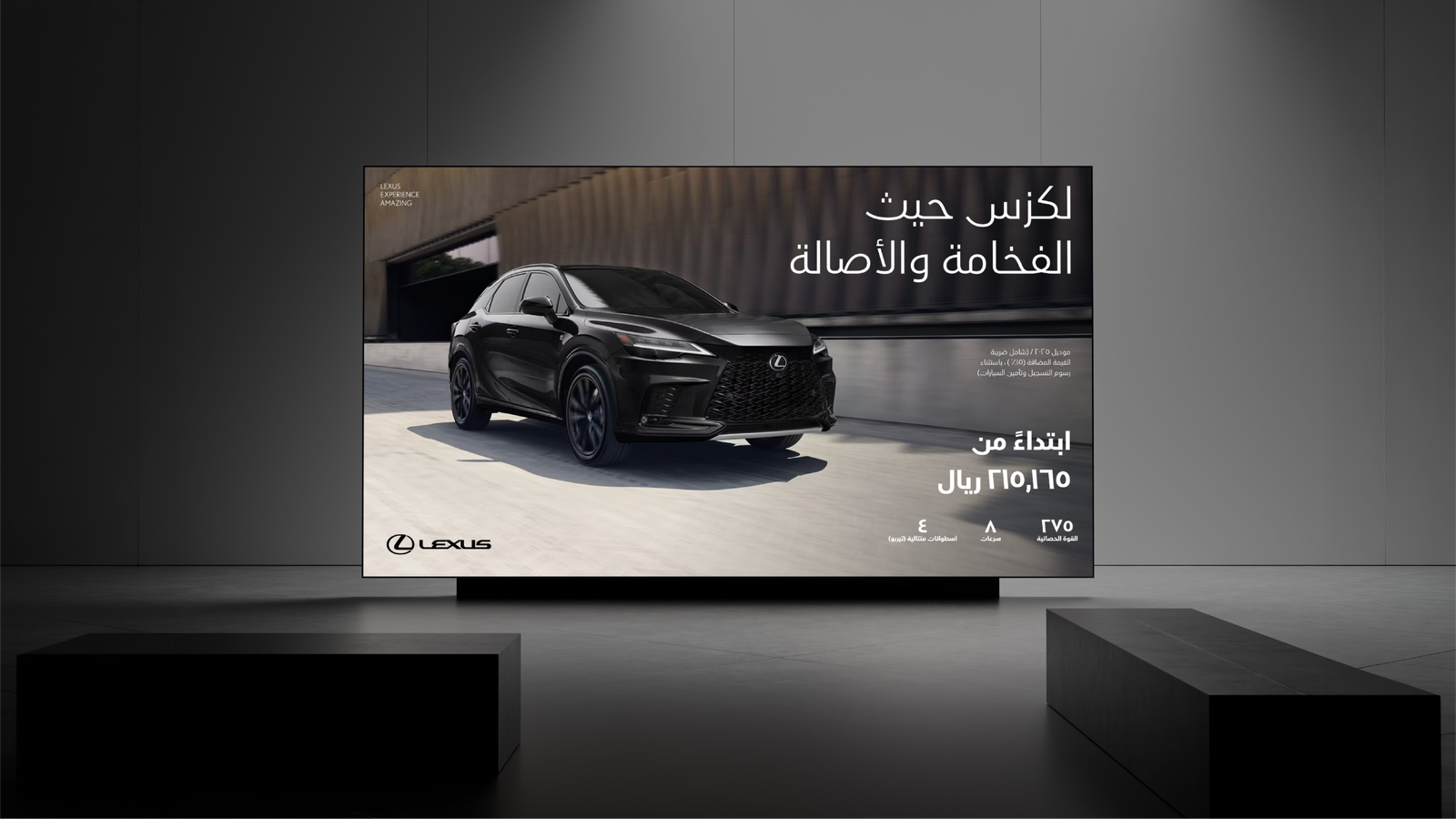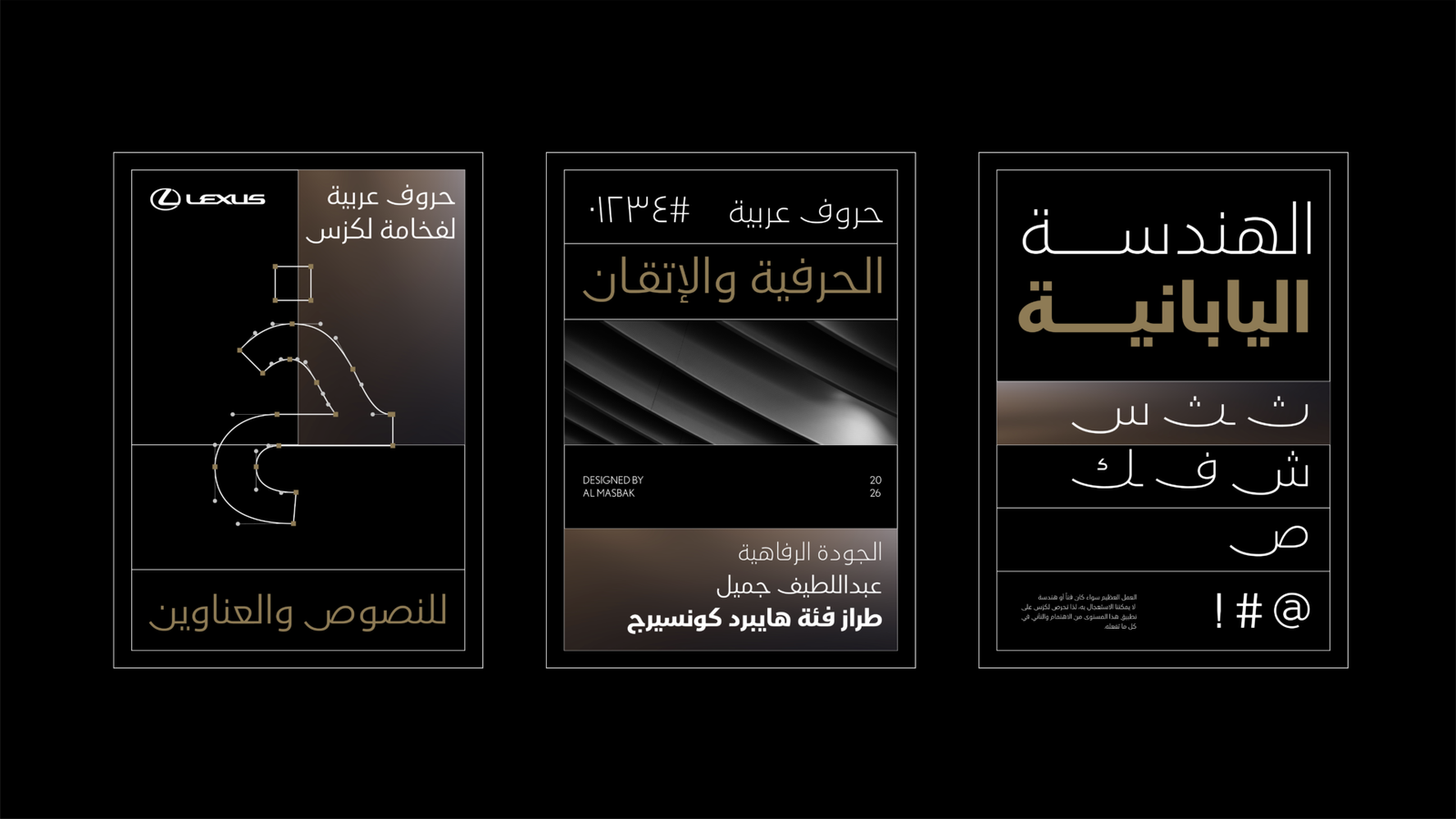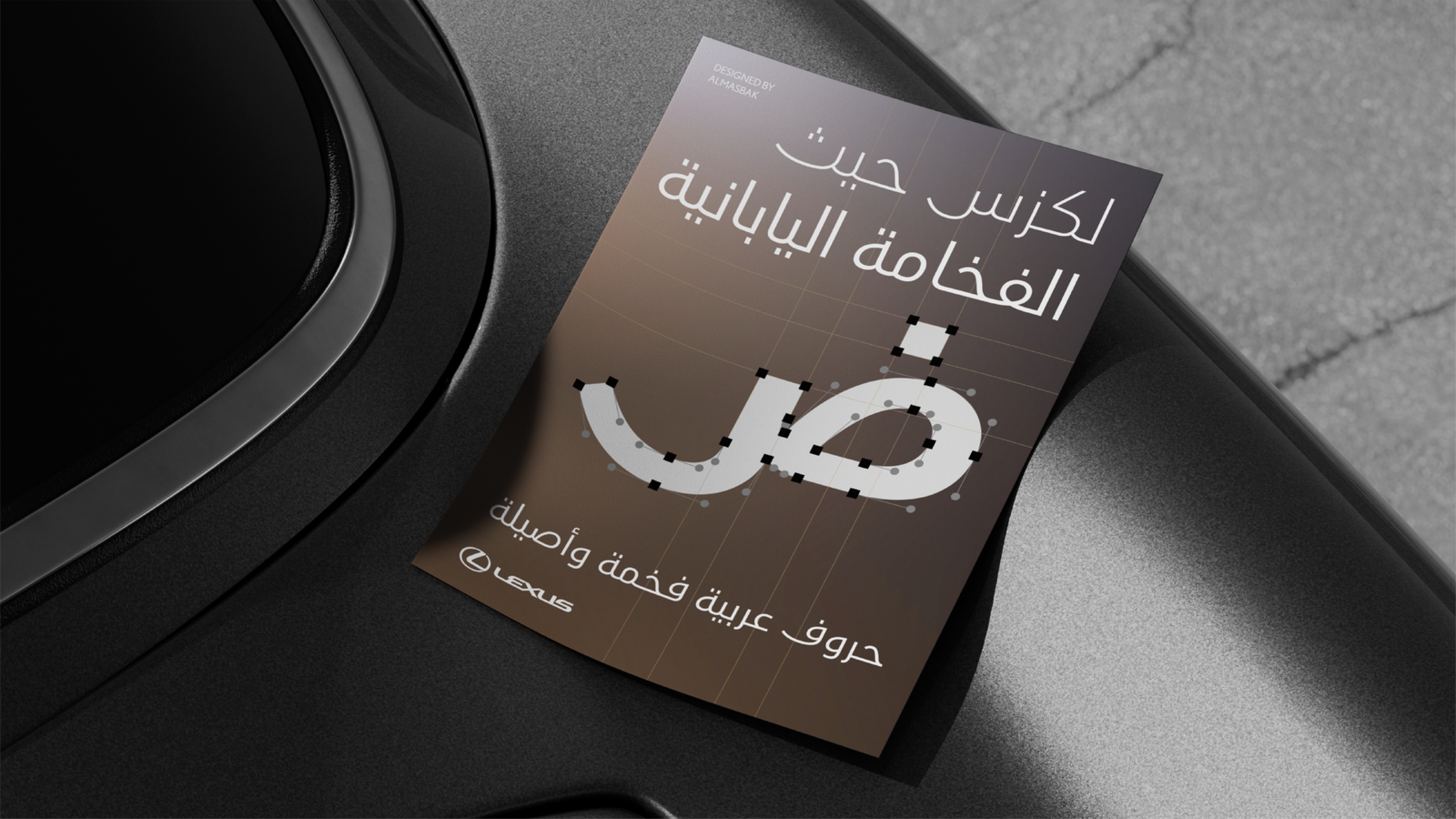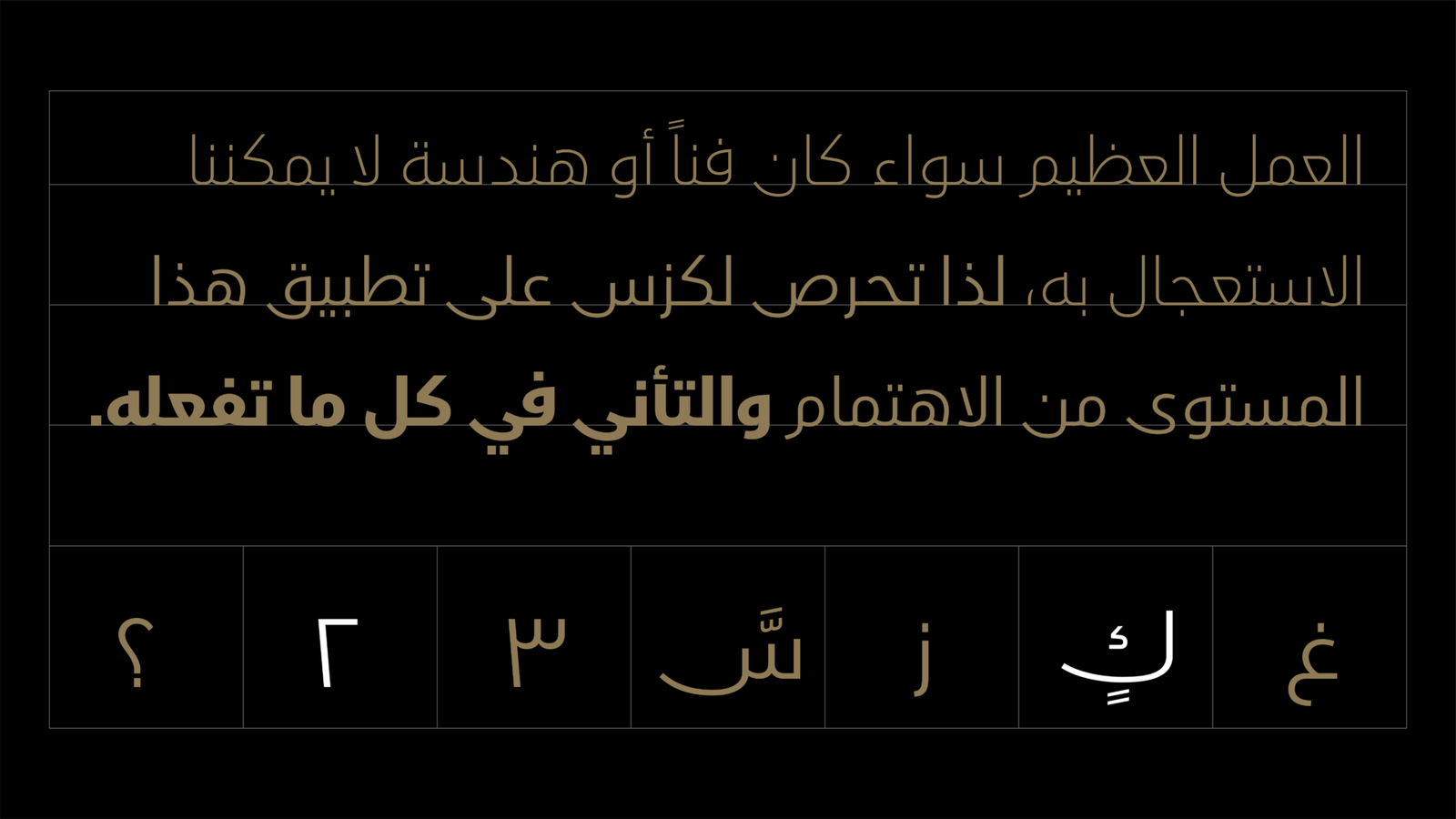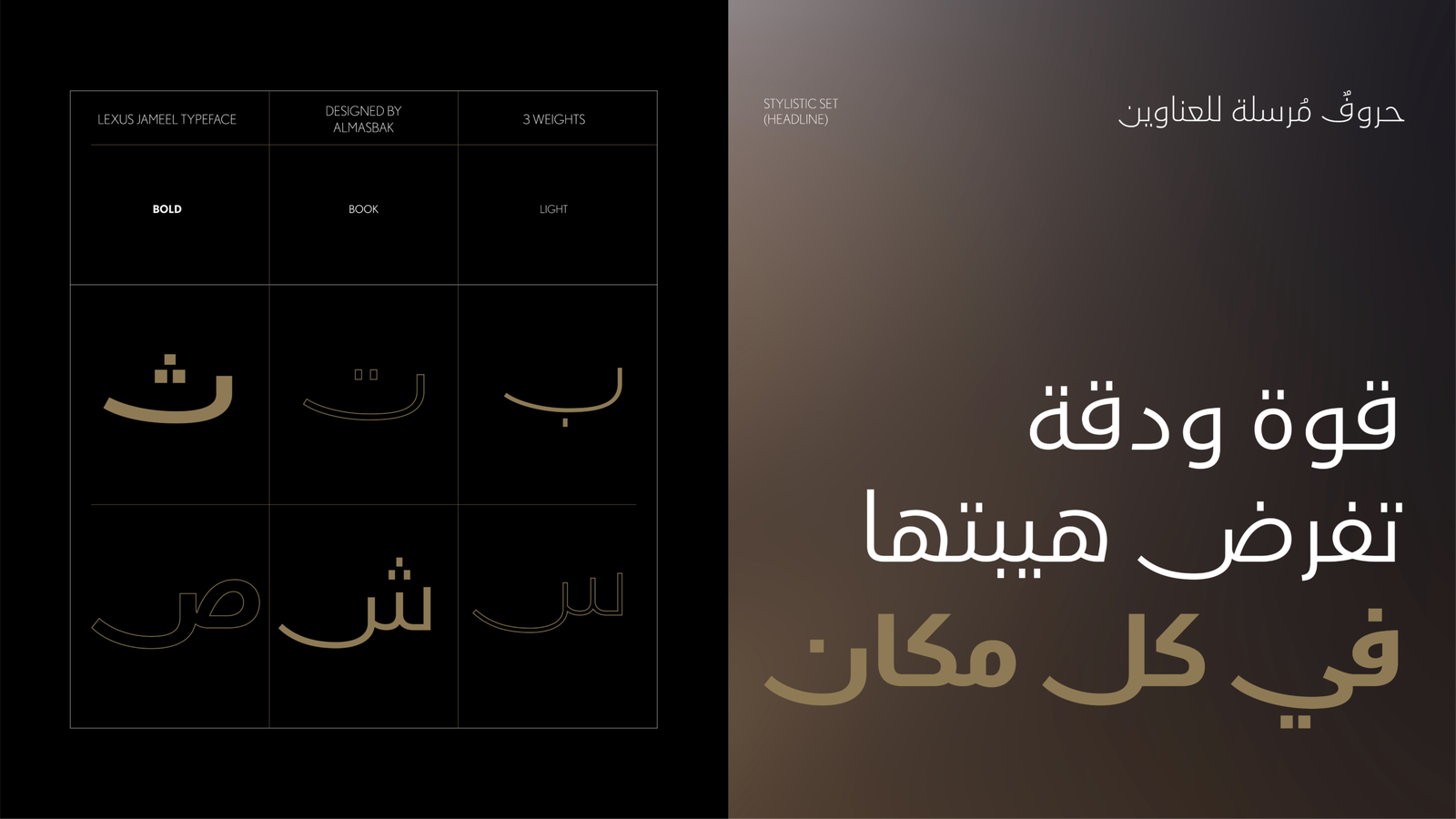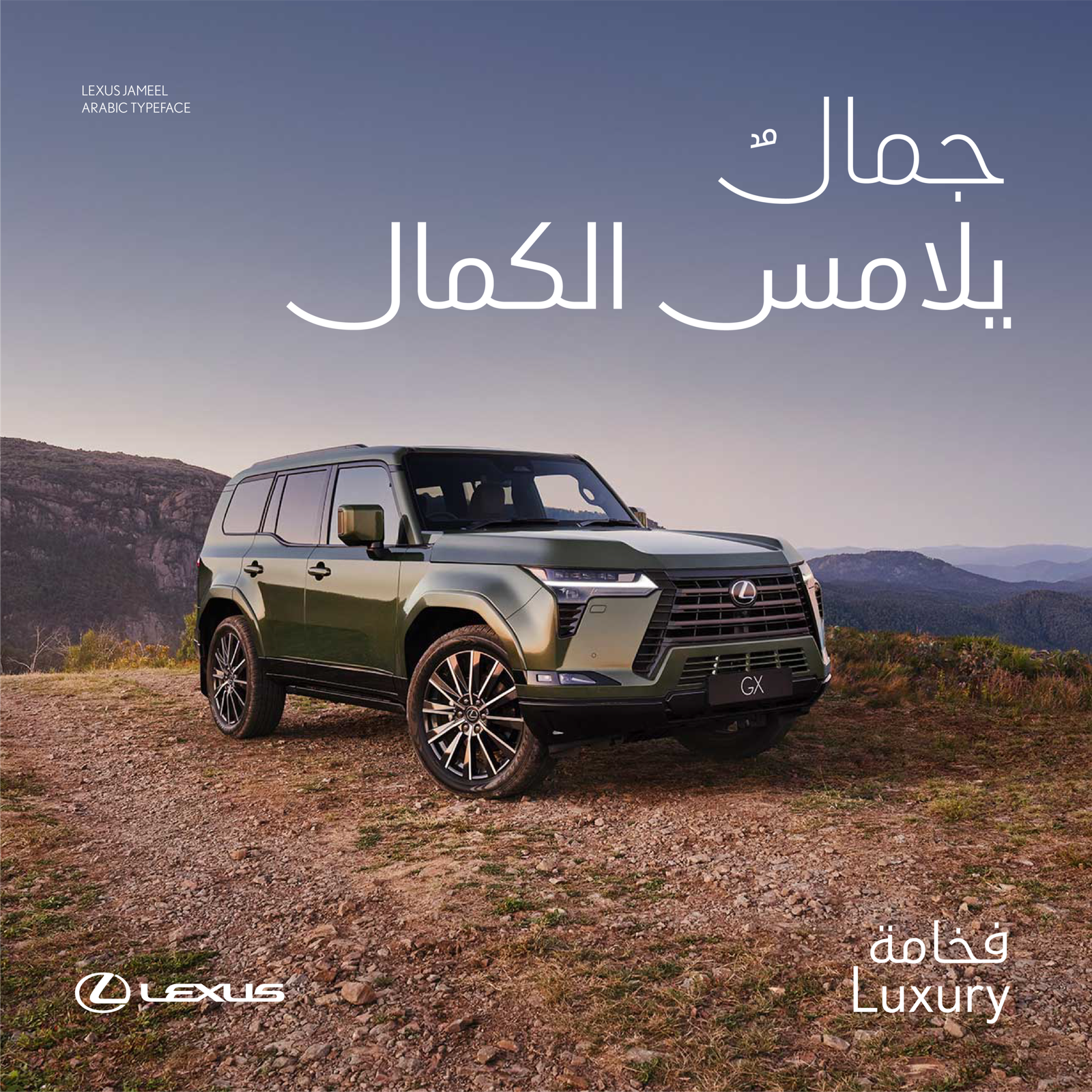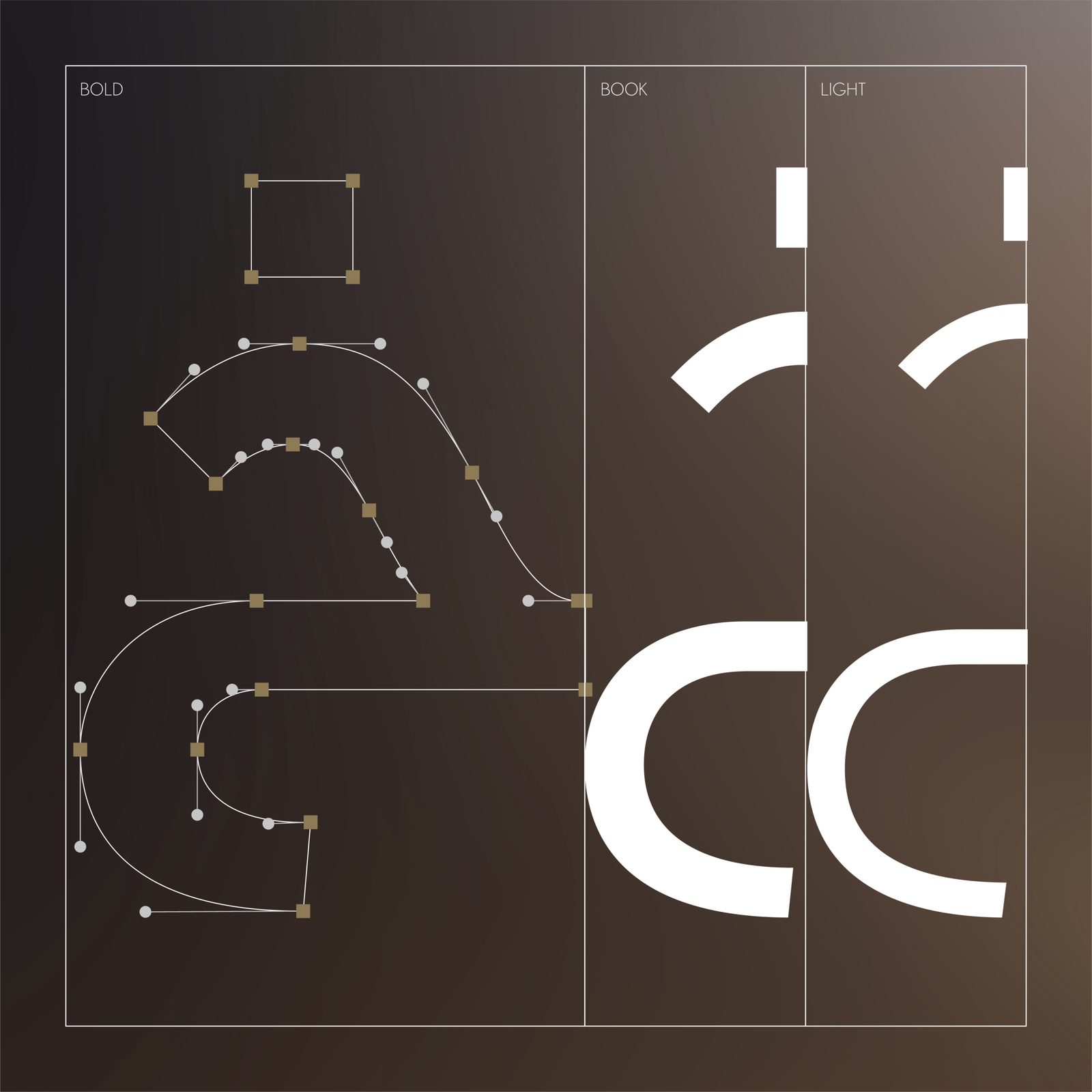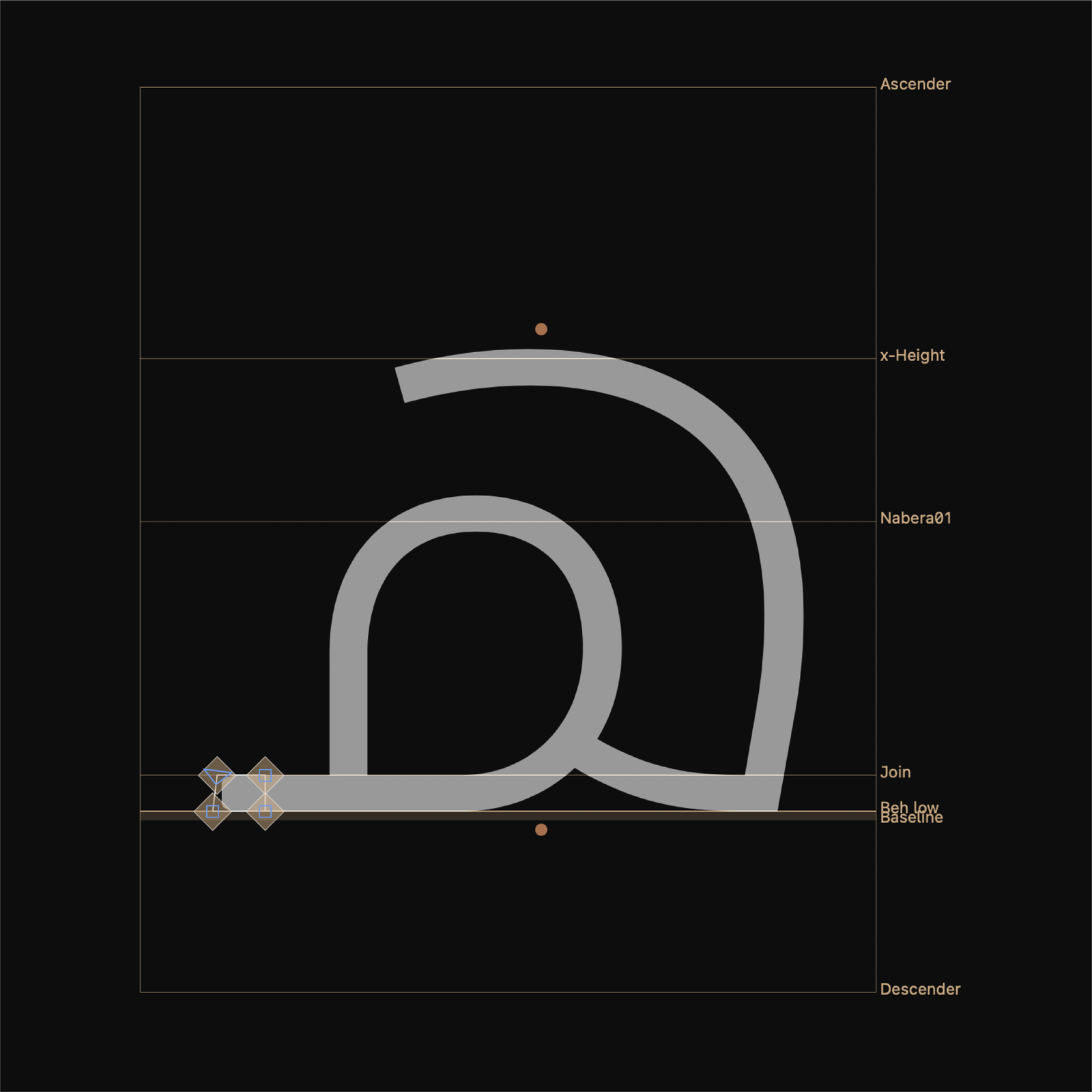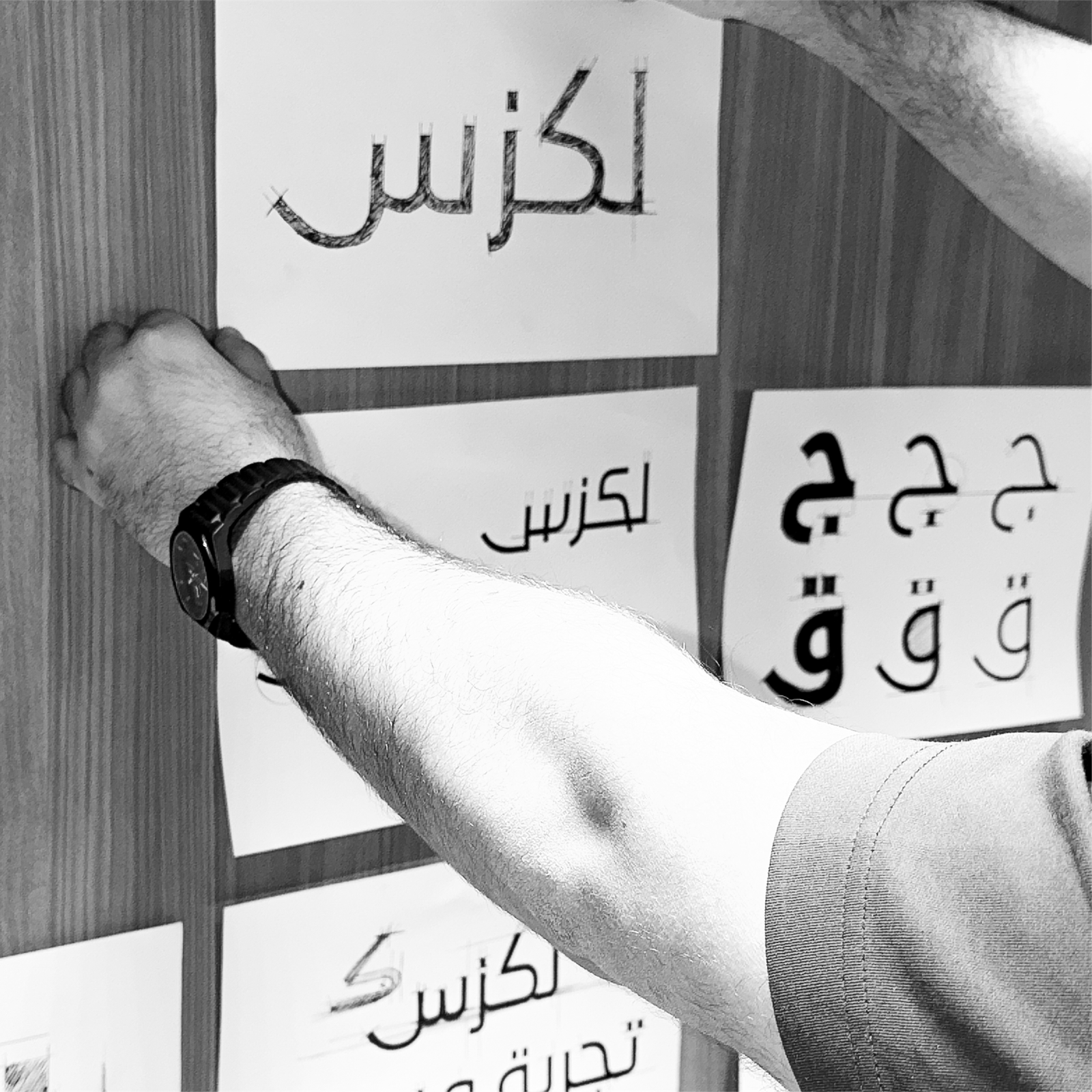
Lexus Jameel Typeface
At ALMASBAK, we designed a custom Arabic typeface for Lexus Saudi Arabia to extend the brand’s typographic identity and deliver a refined visual experience aligned with Lexus’s global presence and core values: luxury, precision, and craftsmanship.
The challenge was to develop an Arabic typeface that harmonizes both visually and functionally with the Latin typeface used in Lexus’s identity, without compromising the inherent beauty or authenticity of the Arabic script. Our aim was to craft Arabic letterforms that echo the typographic rhythm, optical weight, and geometric precision of Lexus’s design language.
The Arabic characters were developed using a soft geometric approach, featuring clean strokes and precisely balanced curves. A minimalist aesthetic was maintained, while x-height proportions, baselines, and inter-letter spacing were carefully calibrated to ensure cohesive performance across bilingual layouts.
The Lexus Jameel typeface is available in three weights: Light, Book, and Bold.